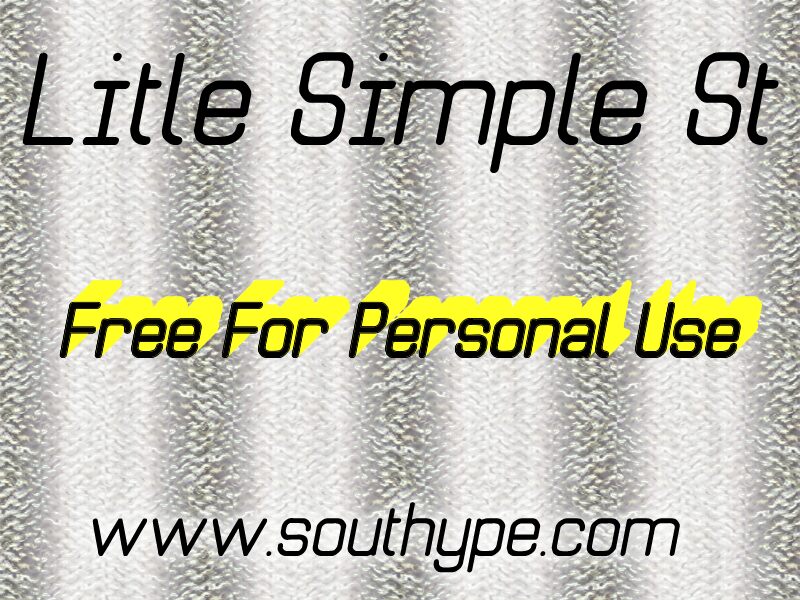
Litle Simple St is a captivating typeface crafted by Southype. Its unique, handwritten aesthetic exudes a sense of warmth and approachability, making it an alluring choice for a variety of design projects. The font's gentle curves and organic flow create a delightful visual rhythm, seamlessly blending modern sensibilities with a touch of vintage charm.
This versatile typeface shines in applications that demand a personal, handcrafted touch, such as branding, packaging, and editorial design. Its inviting personality lends itself perfectly to headings, subheadings, and display text, elevating the overall aesthetic and evoking a sense of authenticity and human connection.